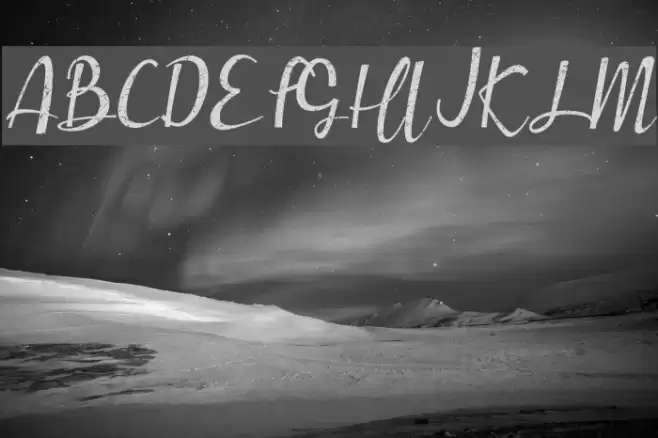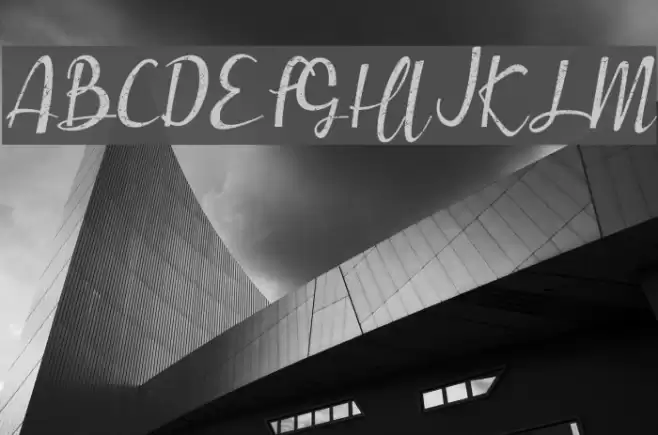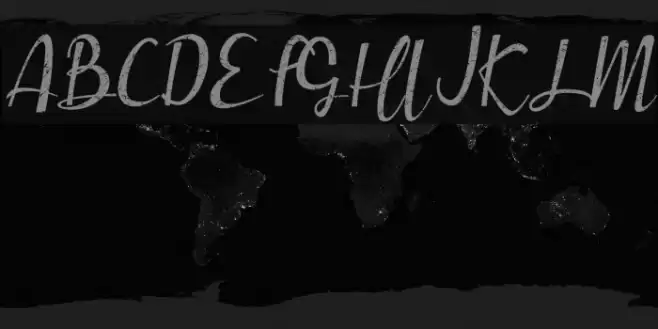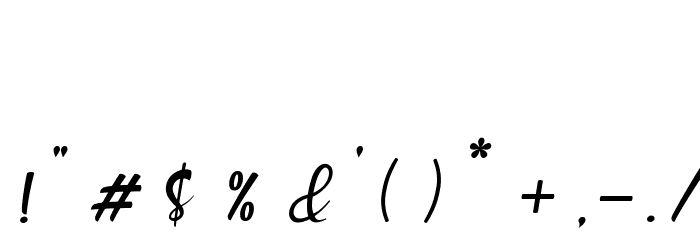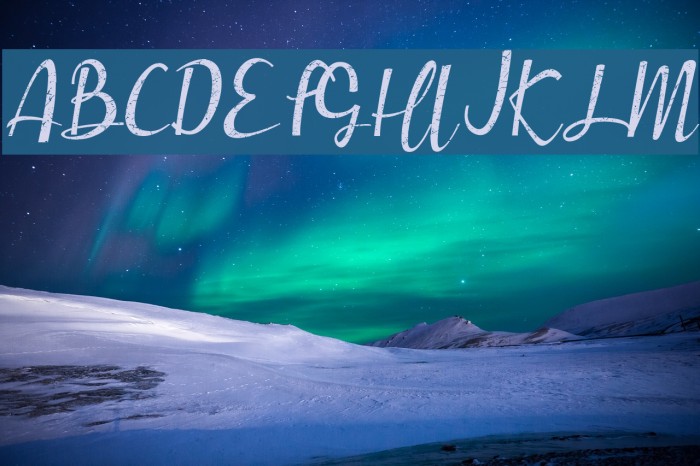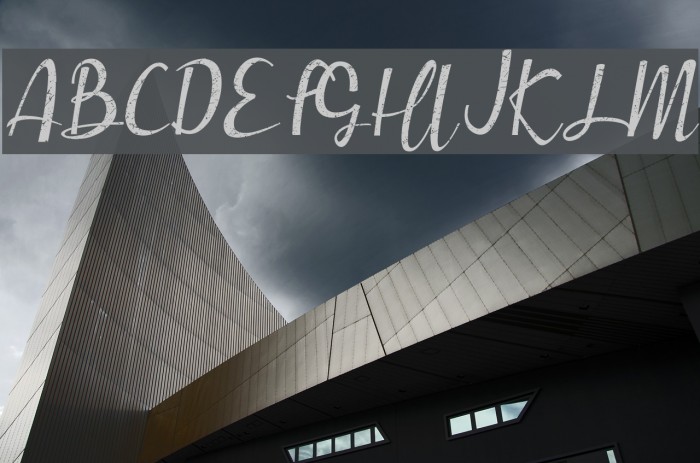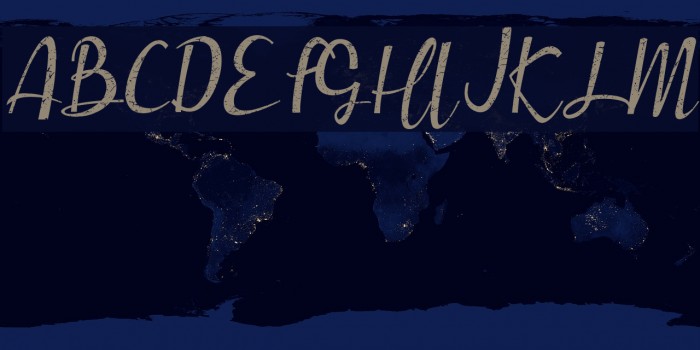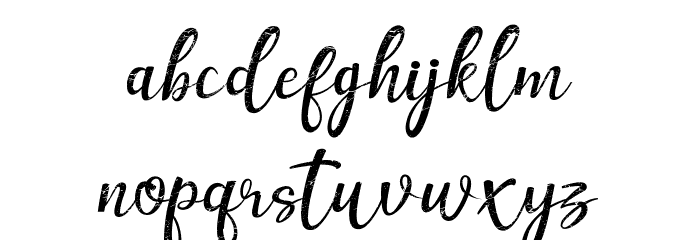
Muttung - Rustic Font
Muttung - Rustic Description
This font features a rustic, hand-drawn style with a textured appearance that mimics brush strokes. The uppercase letters are bold and expressive, with a slight slant that adds a dynamic feel. The lowercase letters maintain a consistent flow, enhancing the handwritten aesthetic. The characters are slightly condensed, giving a compact look while maintaining readability. The special characters and numbers follow the same artistic style, ensuring uniformity across all glyphs. This font's unique texture and style make it suitable for creative projects that require a personal touch.
A rustic, hand-drawn font with a textured, brush-like appearance from Uncategorized fonts.
- Proposed Projects: Ideal for branding, invitations, greeting cards, and artistic posters.
- Use Case: Logos, Headlines, Artistic projects